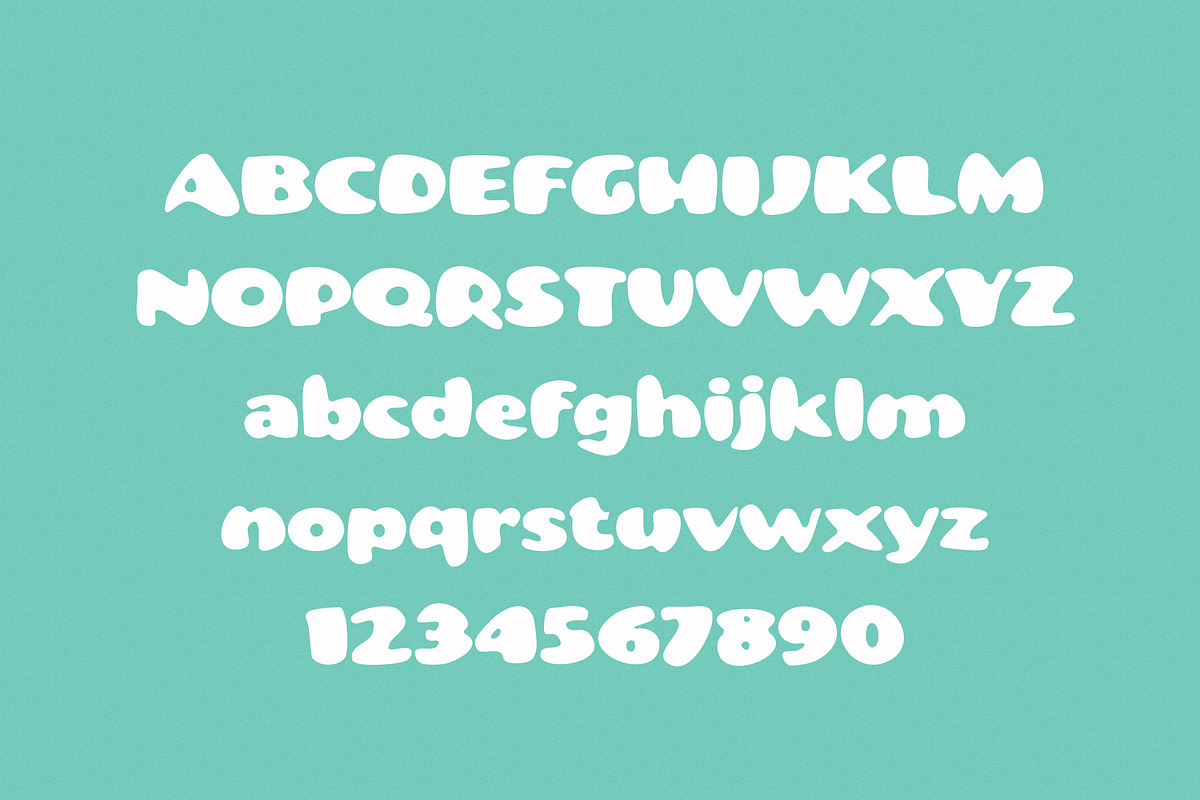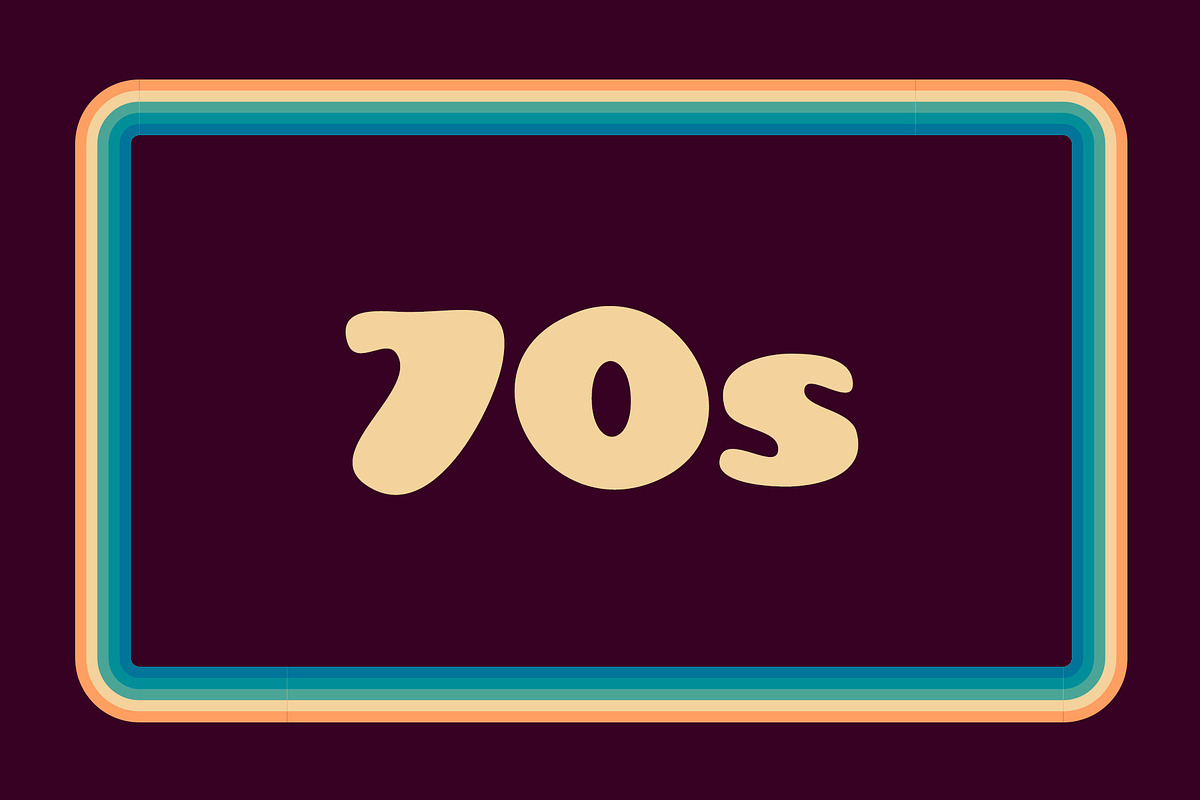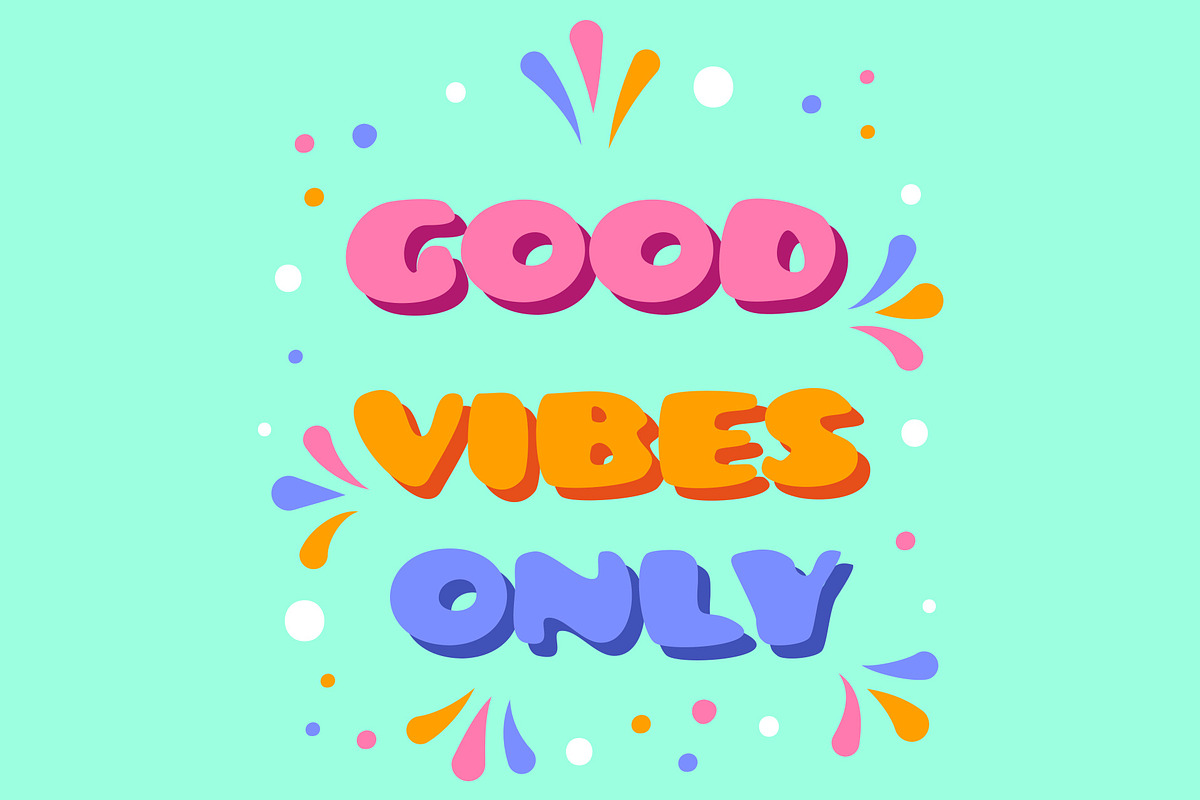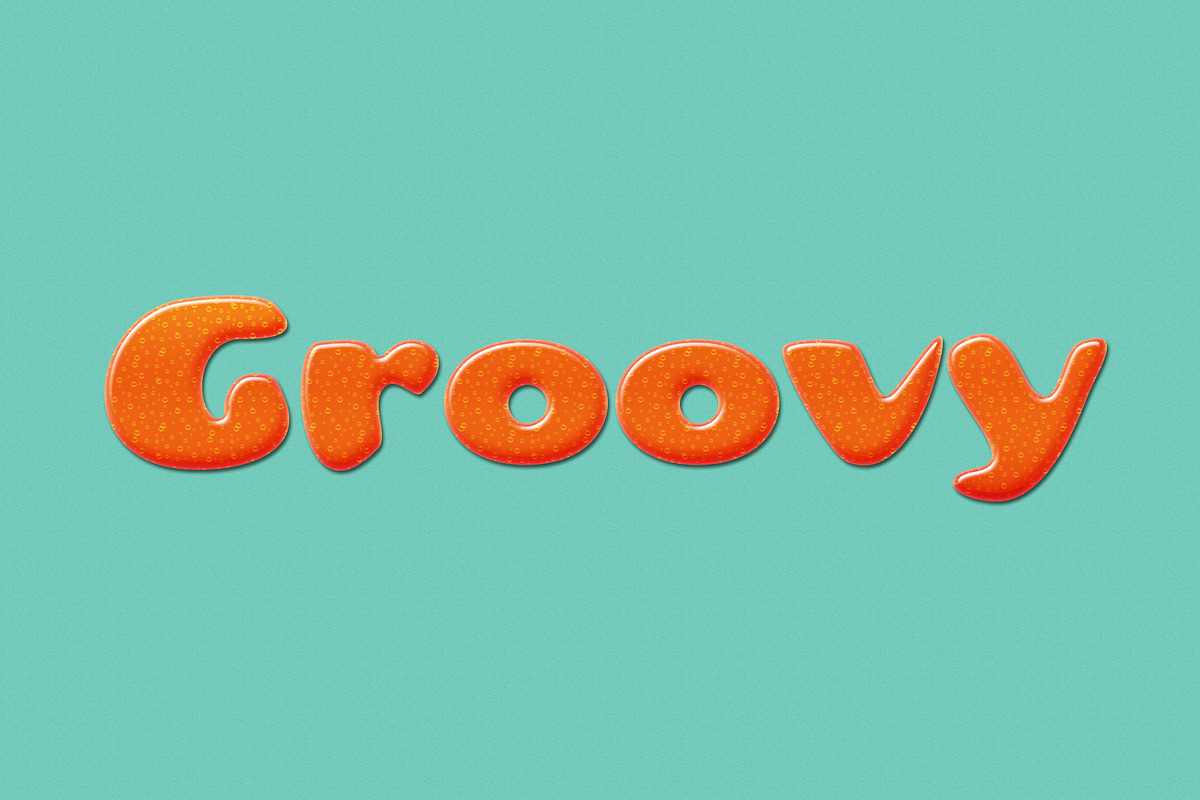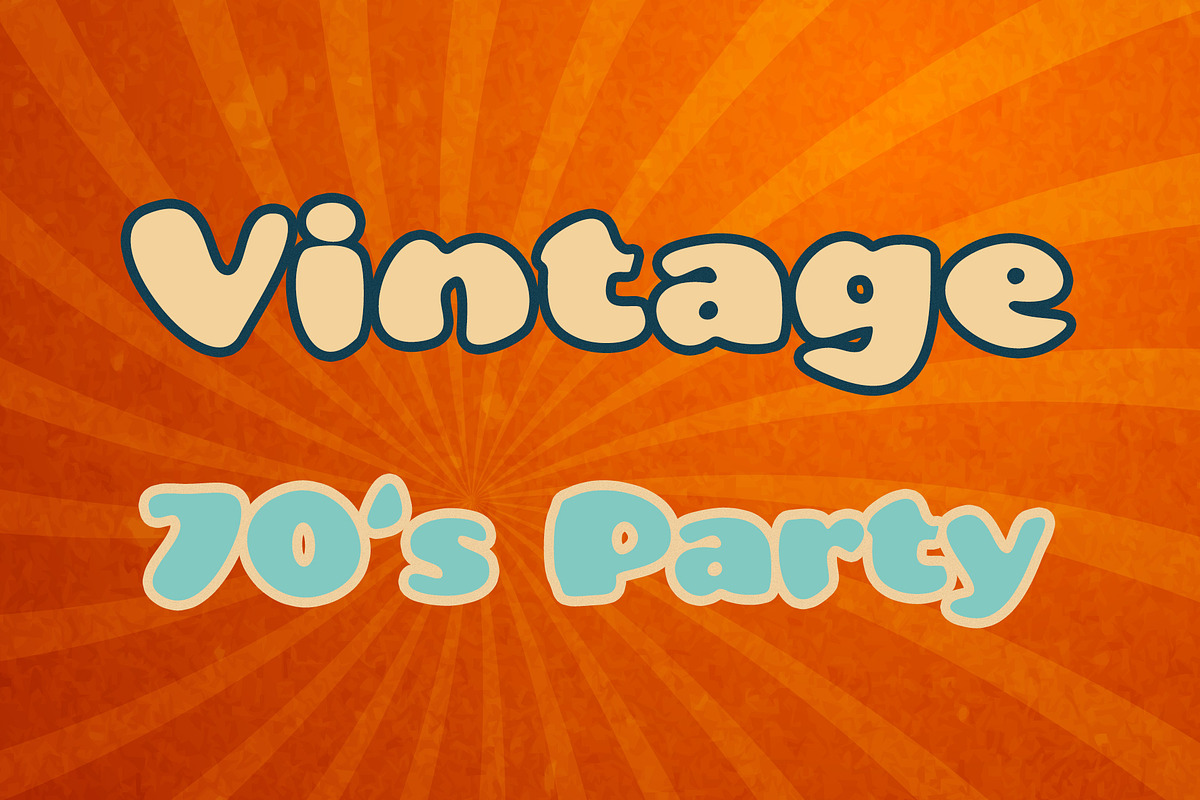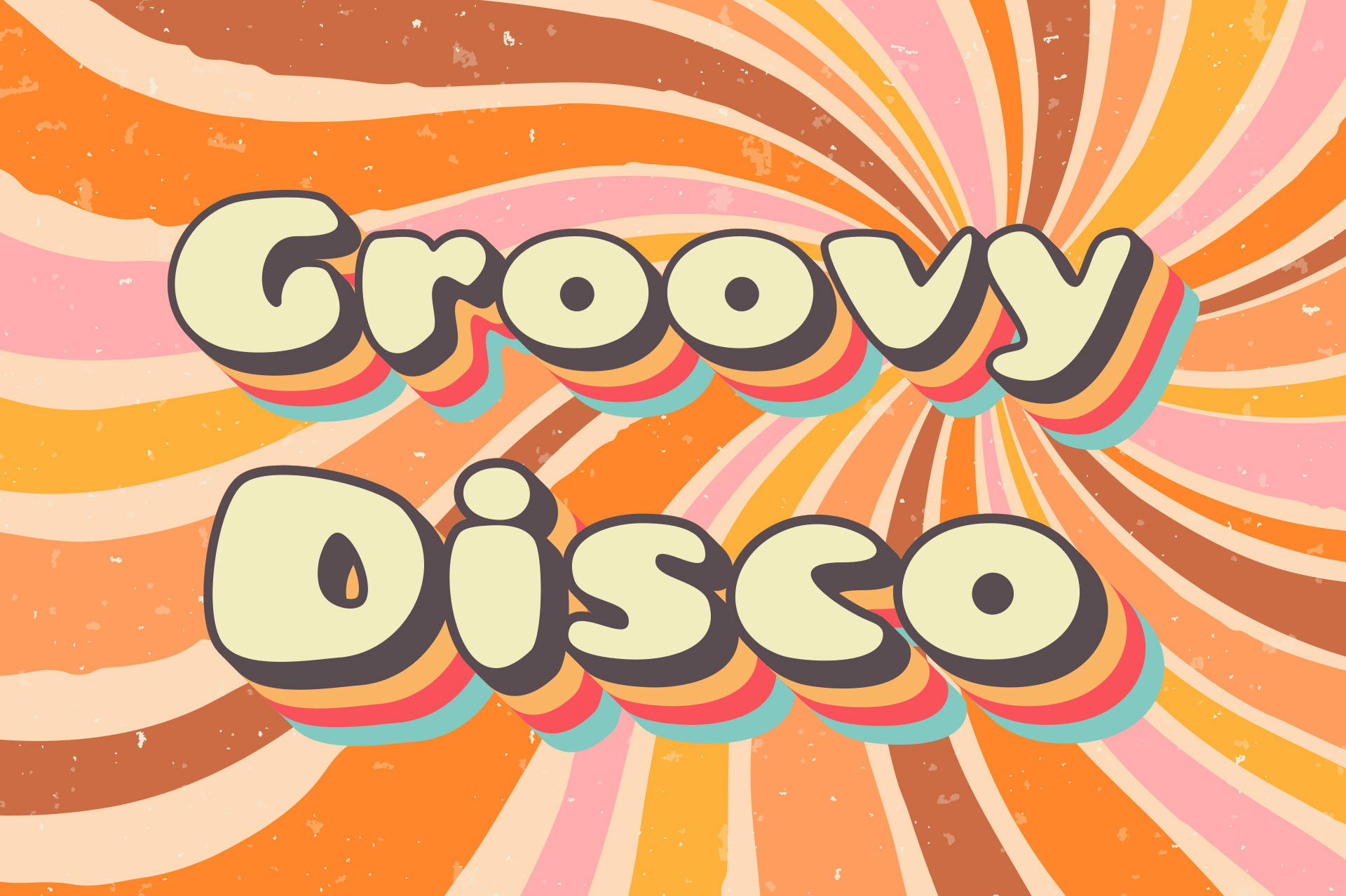
Groovy Disco 70s Font
Groovy Disco 70s Font.
Groovy Disco is a fun and bouncy display font. No matter the topic, this font will be an incredibly asset to your fonts’ library, as it has the potential to elevate any creation. This fun and funky font is perfect for any project that needs a little bit of disco fever! Groovy Disco 70s is a great choice for invitations, party decorations, and any other project that needs a touch of retro fun.